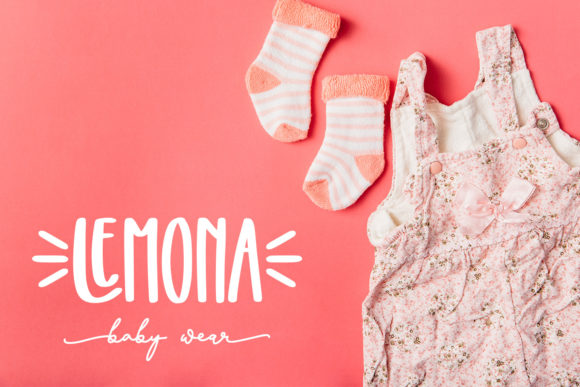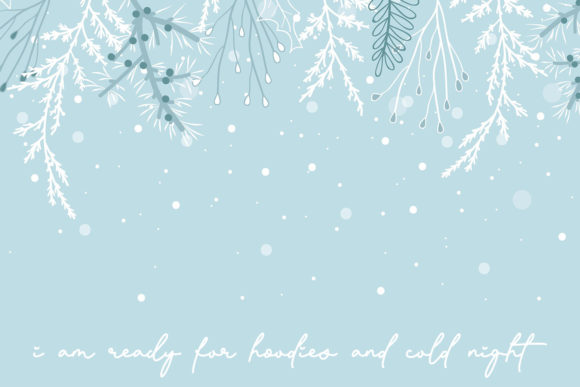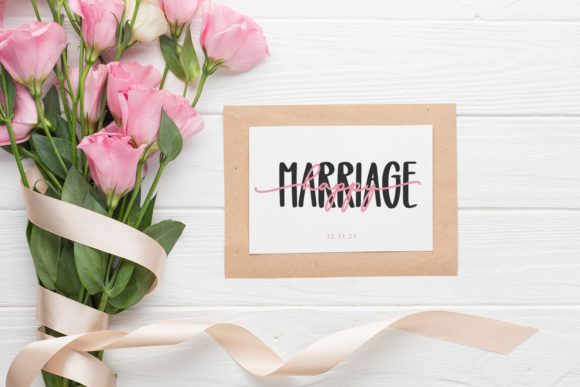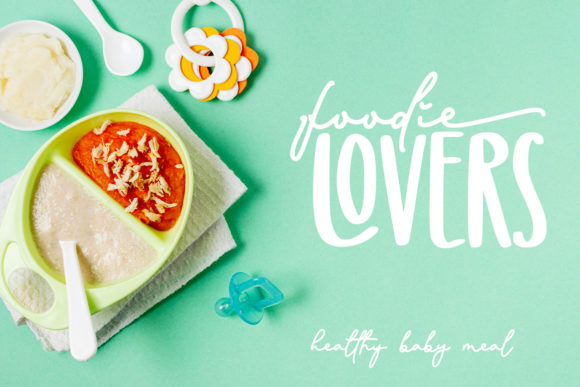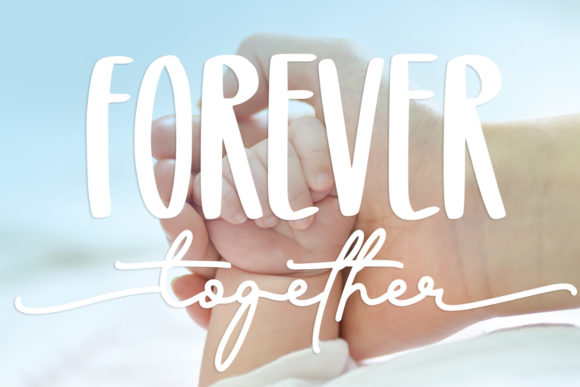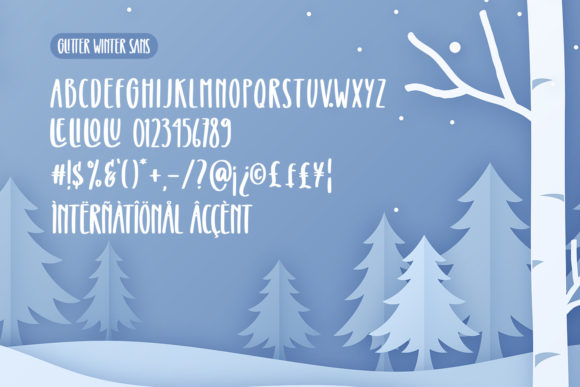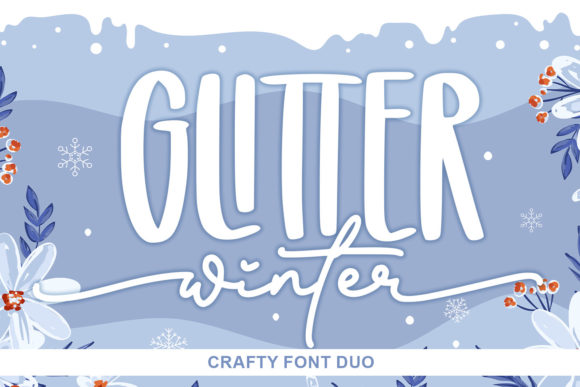
Introducing Glitter Winter Font: Elevate Your Designs with a Touch of Elegance
Are you looking for a font that can add a dash of sophistication and whimsy to your creative projects? Look no further than the Glitter Winter Font, a stunning duo font that combines the best of display and handwritten styles. This beautiful font is perfect for designers, crafters, and anyone looking to add a personal touch to their work.
What Makes Glitter Winter Font So Special?
Glitter Winter Font is a splendid duo font that consists of a display font and a handwritten font, offering the best of both worlds. Every character in this font has a delicate and authentic feel, making it perfect for adding a natural appearance to your most creative projects and designs. Whether you’re working on a logo, a poster, a card, or a digital project, this font is sure to impress.
Key Features of Glitter Winter Font
- PUA Encoded: Glitter Winter Font is PUA encoded, which means you can access all of the glyphs and swashes with ease. This makes it simple to customize your text and add unique touches to your designs.
- Duo Font: This font comes with two styles: a display font and a handwritten font. This allows you to mix and match styles to create a unique look that suits your project.
- Delicate and Authentic: Every character in Glitter Winter Font has a delicate and authentic feel, making it perfect for adding a touch of elegance to your designs.
Glitter Winter Font is a versatile font that is perfect for a wide range of creative projects, including:
- Logos and Branding: Use Glitter Winter Font to create a unique and memorable logo that stands out from the crowd.
- Posters and Flyers: Add a touch of elegance to your posters and flyers with this beautiful font.
- Cards and Invitations: Create personalized cards and invitations that are sure to impress with Glitter Winter Font.
- Digital Projects: Use this font to add a personal touch to your digital projects, such as social media graphics, blog posts, and more.
Tips for Using Glitter Winter Font
Here are a few tips for getting the most out of Glitter Winter Font:
- Experiment with Different Styles: Try pairing the display font with the handwritten font to create a unique look.
- Play with Glyphs and Swashes: Use the PUA encoded glyphs and swashes to add custom touches to your text.
- Mix and Match with Other Fonts: Combine Glitter Winter Font with other fonts to create a unique and eye-catching design.
Glitter Winter Font is a beautiful and versatile font that is perfect for designers, crafters, and anyone looking to add a touch of elegance to their creative projects. With its delicate and authentic feel, PUA encoding, and duo font style, this font is sure to impress. Whether you’re working on a logo, poster, card, or digital project, Glitter Winter Font is a great choice.